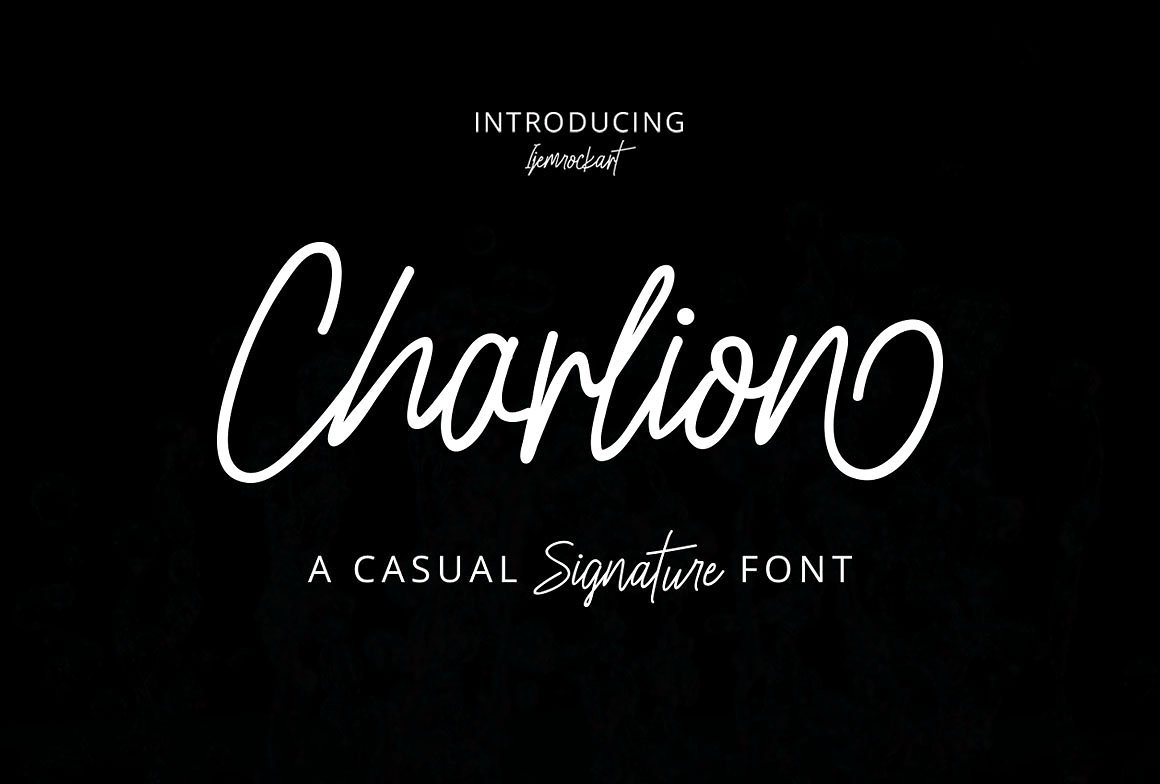
The Perfect Sign-off: Unveiling the Charlion Script Font
Have you ever stared at a blank page, pen in hand, trying to put your thoughts into words? The blank slate can be intimidating, but it’s in these moments that creativity truly comes alive. For designers, the challenge of expressing their vision through typography is a thrilling one, and the right font can make all the difference.
Enter the Charlion Script Font, a charming and casual signature script designed to add a touch of personality to your designs. Available in two individual styles – Script and Slant Script – this font is perfect for designers looking to create a sense of warmth and approachability in their work.
What sets the Charlion Script Font apart is its versatility and value. Whether you’re creating a logo, a branding package, or a marketing campaign, this font is sure to add a unique touch that sets you apart from the crowd. Its value lies in its ability to convey a sense of authenticity and human connection, making it a valuable addition to any designer’s toolkit.
Charlion Script Font Key Features
- Unique Characteristics: Features elegant, cursive script with subtle flair and refined details, ideal for creating visually appealing and professional-looking designs.
Charlion Script Font Review
Overall, I’m quite impressed with the Charlion Script Font. The font has a beautiful, elegant feel to it that makes it perfect for any project that needs a touch of sophistication. ✨ The font’s flowing lines and subtle curves make it an excellent choice for anything from wedding invitations to luxury branding.
- The Charlion Script Font has an incredible level of detail, from the intricate flourishes to the subtle texture that gives it a sense of depth.
- The font is highly legible, making it easy to read even at smaller font sizes.
- The Charlion Script Font comes in a wide range of weights and styles, giving you plenty of options to choose from.
However, there are a few limitations to consider. ⚠️ The font may not be suitable for projects that require a more modern or edgy feel, as it can come across as a bit too traditional. Additionally, the font’s complexity can make it difficult to use in certain contexts, such as in text-heavy documents.
Overall, I think the Charlion Script Font is a fantastic choice for any project that needs a touch of elegance and sophistication. While it may not be the best fit for every project, it’s definitely worth considering for anything that requires a high level of style and sophistication.
Tips for Getting the Most Out of Charlion Script Font
Charlion Script Font is a beautiful, elegant font that works well for:
– Event branding and signage
– Luxury product labels and packaging
Experiment with different font sizes, colors, and combinations to create a unique and eye-catching design.
Alternatives to Charlion Script Font
Charlion Script Font is a beautiful, elegant script font, but sometimes designers may need alternatives. Here are a few options to consider:
Carolyna Pro is a high-end script font with a luxurious feel. It’s perfect for designing wedding invitations, luxury branding, and high-end packaging. Carolyna Pro is similar to Charlion Script Font in its elegant and refined feel, but has a more ornate and decorative touch. It’s available in a wide range of languages and is highly customizable.
Is the Charlion Script Font available in different font weights and styles?
The Charlion Script Font comes in various font weights and styles, including light, regular, bold, and italic. You can use these different weights and styles to create visual hierarchy and emphasis in your designs. Check the font’s documentation or website to see the available